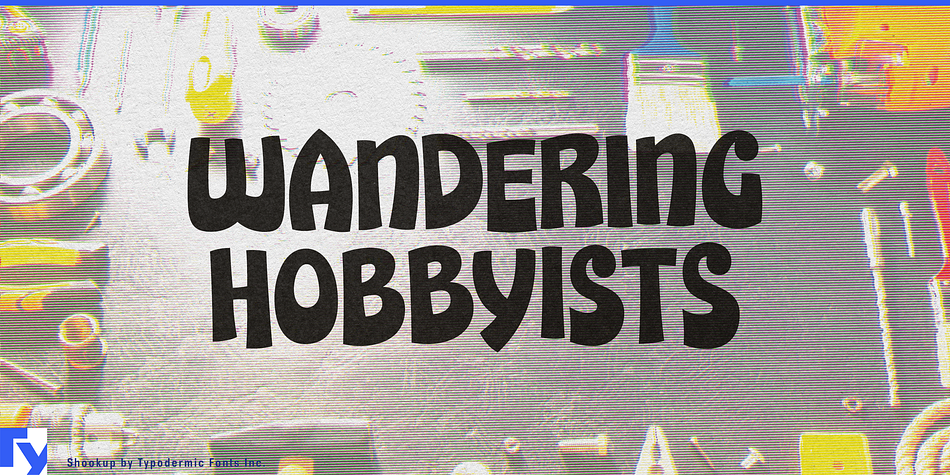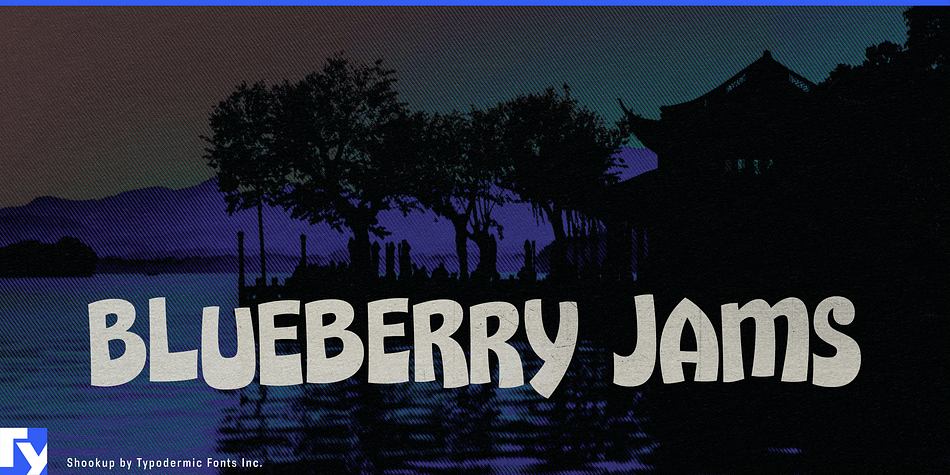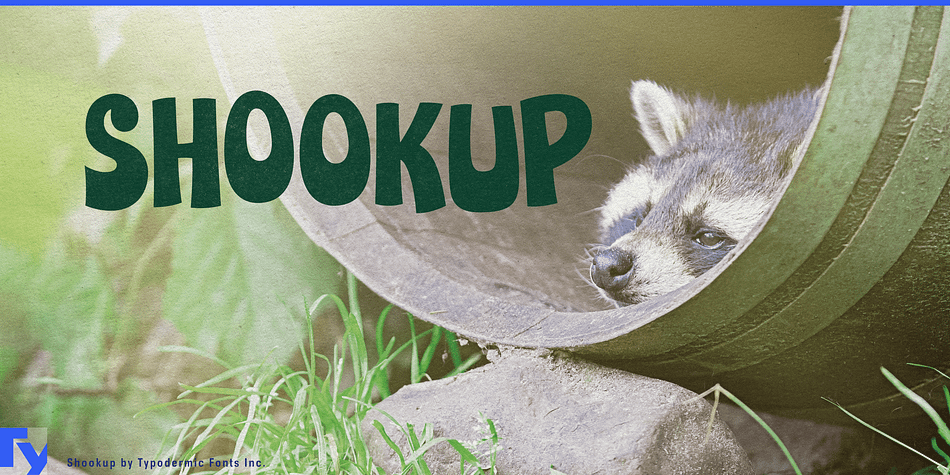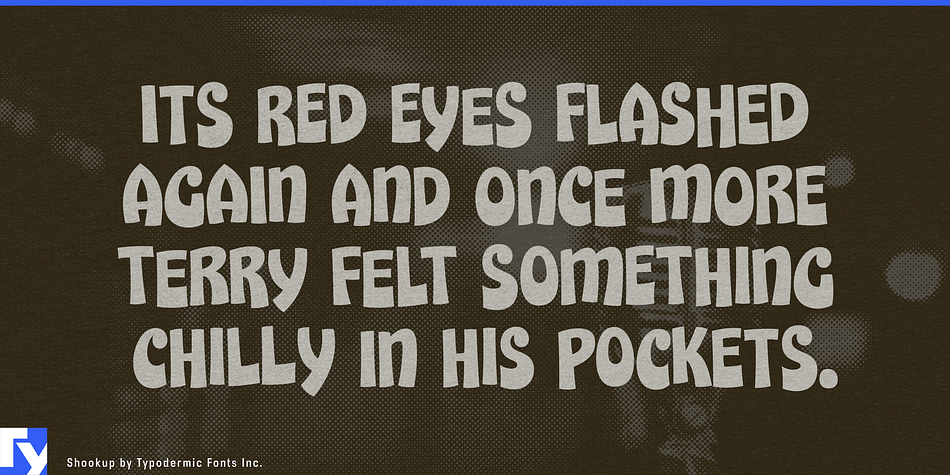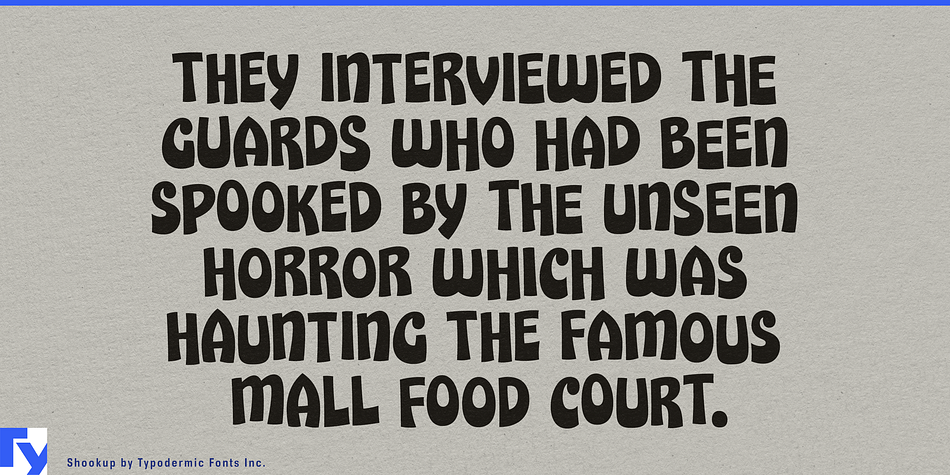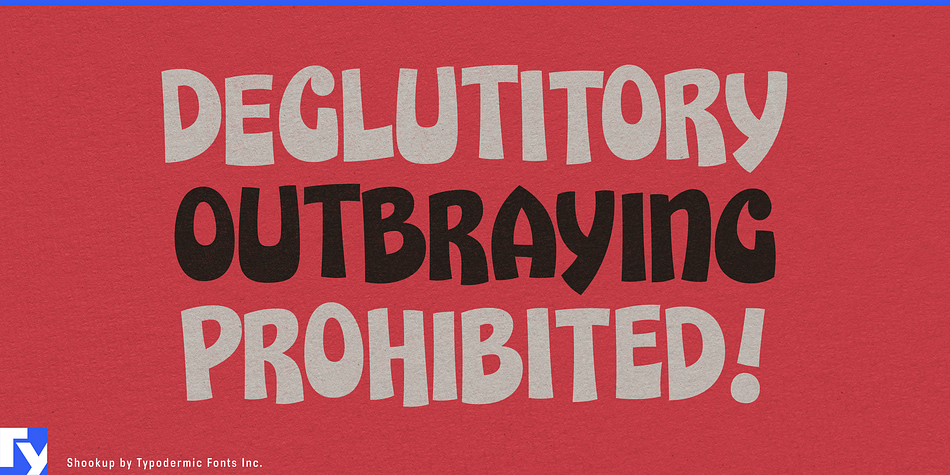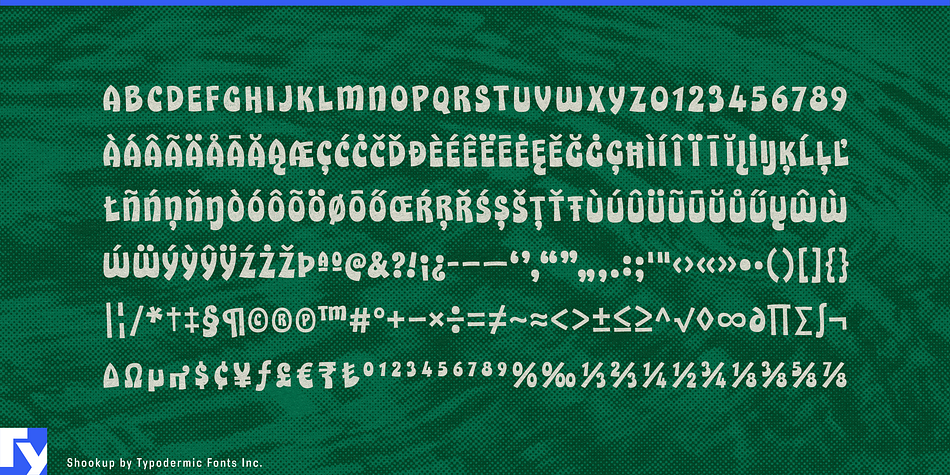
Shookup is a display font published by Typodermic Fonts Inc.
Shookup is a curly headliner containing no less than 83% funk. In OpenType savvy applications, letter & numeral variations are automatically shuffled for more bounce.